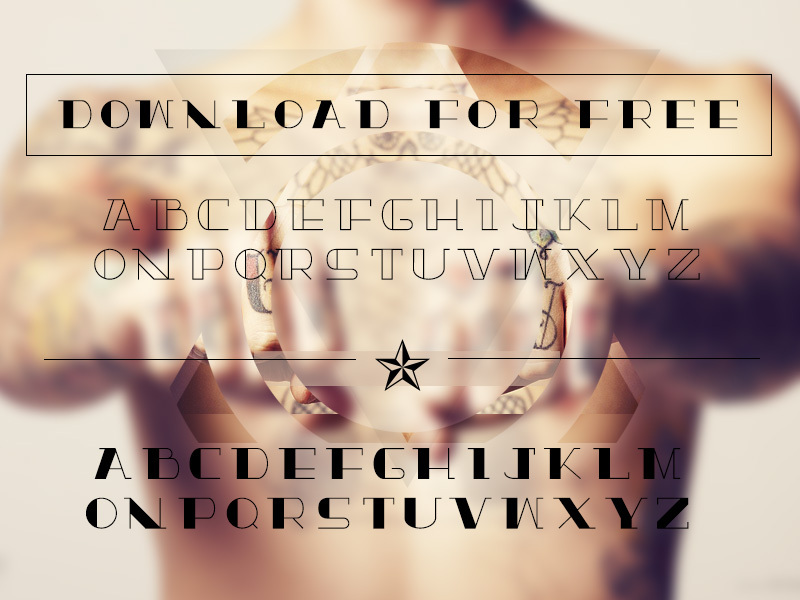
True Love by Davelab di Cariani Davide is a free retro outline display font with spare Art Deco geometry, broad proportions, exceptionally fine contours, and generous internal space. Rounded bowls meet crisp diagonals throughout the tall capitals.
Its 1920s-inspired styling makes a natural fit for fashion posters, cocktail-bar branding, and period event programs. On book covers or music packaging, the open linear drawing can echo architectural borders and careful geometric ornament for audiences drawn to restrained vintage glamour and precise period detailing.
Only letters, numbers, dashes, and periods are available.